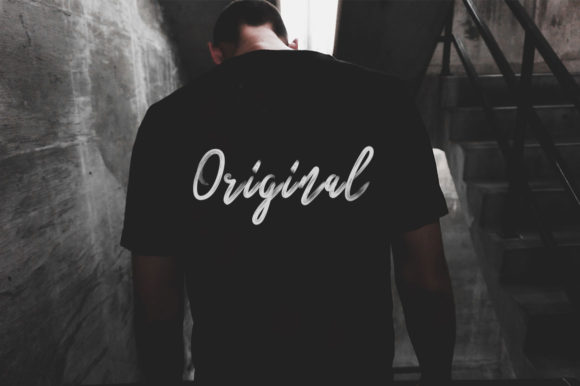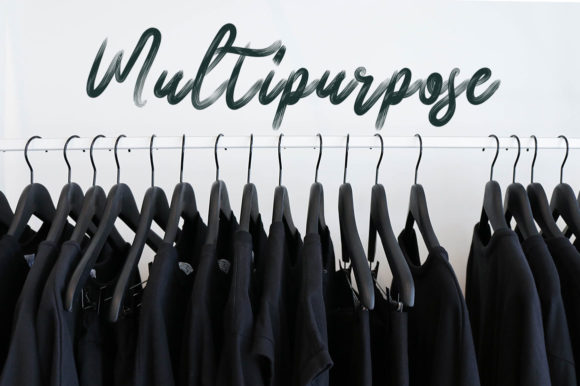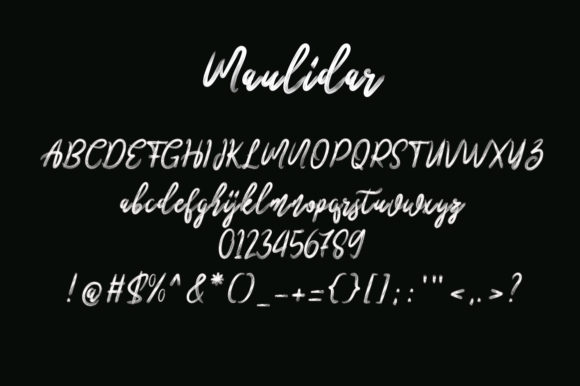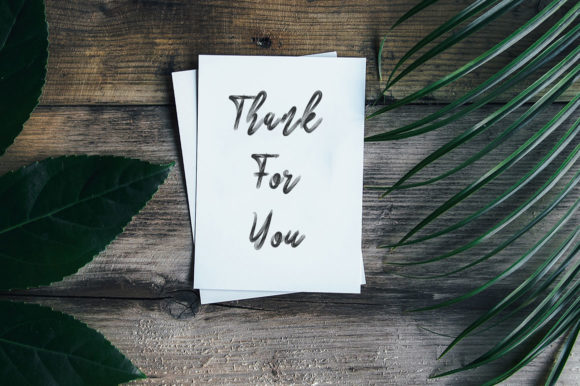
HomeScript FontsMaulidar Font Script Fonts Maulidar Font FacebookXPinterestWhatsApp Maulidar Font Poster 2 Maulidar Font Poster 3 Maulidar Font Poster 4 Maulidar Font Poster 5 About Maulidar Font Maulidar is a simple, yet lovely brush font with a friendly feel. Get inspired by its modern look! DOWNLOAD ON CREATIVE FABRICAThis font is sold and delivered by Creative Fabrica. Font Canyon may earn a commission if you buy through this link. People also explored Sigosebur Brush Font Garsimon Marker Font Smile Font Yellow Meow Font Queen Bee Font Cute Spring Font Baldorty Font Hayme Monogram Font Gotter Junks Font 369 0 TagsMaulidar Font Previous articleBetti Script FontNext articleWinters Font LEAVE A REPLY Cancel reply Comment: Please enter your comment! Name:* Please enter your name here Email:* You have entered an incorrect email address! Please enter your email address here Website: Save my name, email, and website in this browser for the next time I comment. Personal Use Free Qiwqiw Personal Use Free Read more about this font Doriath Personal Use Free Read more about this font Miss Love Personal Use Free Read more about this font Maxwell Personal Use Free Read more about this font BLOG To increase your work productivity, choose the most readable fonts. In today's fast-paced work environment, where digital communication and information consumption are integral to our daily routines, the choice of fonts can significantly impact... Best Fonts for YouTube Videos: Make Your Thumbnails Stand Out The 10 Best Handwriting Fonts to Add Personality to Your Designs Top 10 Handwritten Fonts That Elevate Your Designs